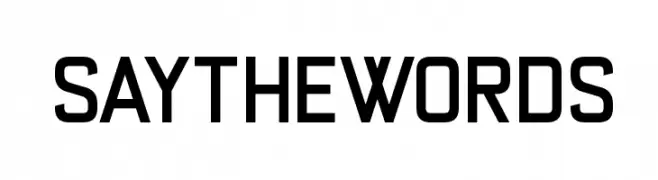
A bold, pixelated font with a retro digital aesthetic.
A bold, modern sans-serif font with geometric lines and uniform width.
A bold, angular 3D font with a futuristic and geometric design.
Bold, angular, and italicized font with a modern, edgy style.
A bold, angular font with a sharp, warped design for a fierce look.
A bold, angular 3D italic font with a futuristic and dynamic style.
A bold, futuristic font with sharp, angular edges and an italic slant.
A bold, angular font with sharp, blade-like edges and a geometric style.
A bold, angular font with sharp, blade-like edges for a modern, edgy look.
A modern, gradient italic font with a dynamic, futuristic style.